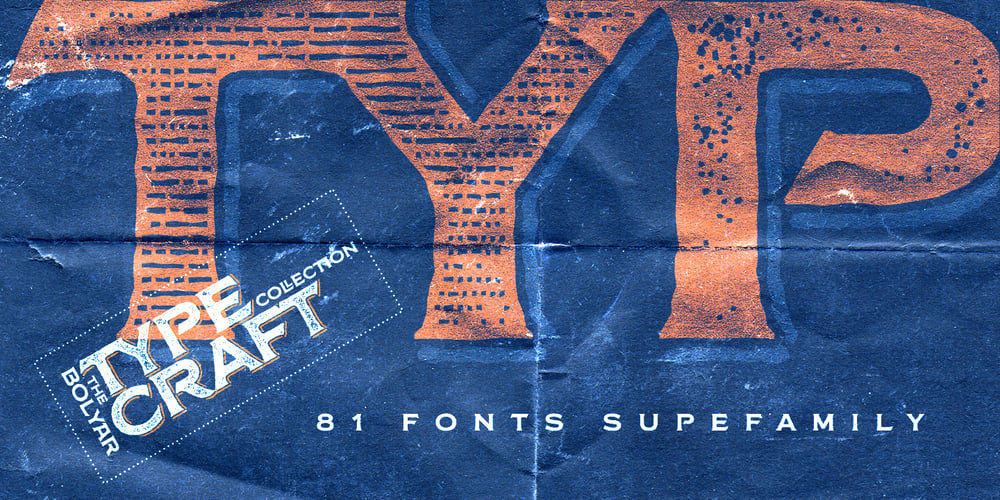
FM Bolyar TypeCraft
FM Bolyar TypeCraft font
FM Bolyar TypeCraft Font Family was designed by Jordan Jelev, Vassil Kateliev and published by The Fontmaker. FM Bolyar TypeCraft contains 81 styles and family package options. A super font family mastered to an unparalleled level of precision, Bolyar TypeCraft is a collection multiple textured styles that represent historical printing techniques. A proud member of our successful Bolyar lineage this unique type family provides unlimited options for your creativity and is quite able to satisfy every typographic taste. If you are addicted to classic vintage style, then you could easily use Bolyar TypeCraft for almost any project of desire – from letterheads, logos and catchy headlines to elegant packaging, book covers and wine labels. Alternates, Swashes and Ligatures will help you customize almost every single letter and fit perfectly to your artwork. Bolyar TypeCraft provides a broad range of advanced typographical features: Multiple subfamilies each packing the two classic Bolyar styles – Regular (N) and Ornate (O). Five weights per style ranging from thin (100) to black (900) with full multilingual support for all Latin based languages as well as Cyrillic. A 1000+ glyphs per weight including three multilingual stylistic sets, swash designs and useful discretionary ligatures. Sub- and superscript basic Latin and Cyrillic glyphs as well as figures. Two positional models for lowercase accessed as OpenType case sensitive forms – baseline (default) or vertical centering. Contextual alternates and special stylistic set with different contour roughness exclusively developed for Bolyar Rough subfamily. A multifunctional Bolyar Shadow family witch can be flawlessly paired with any of the sub-family styles provided. Check out some great examples of Bolyar TypeCraft in use by the Labelmaker